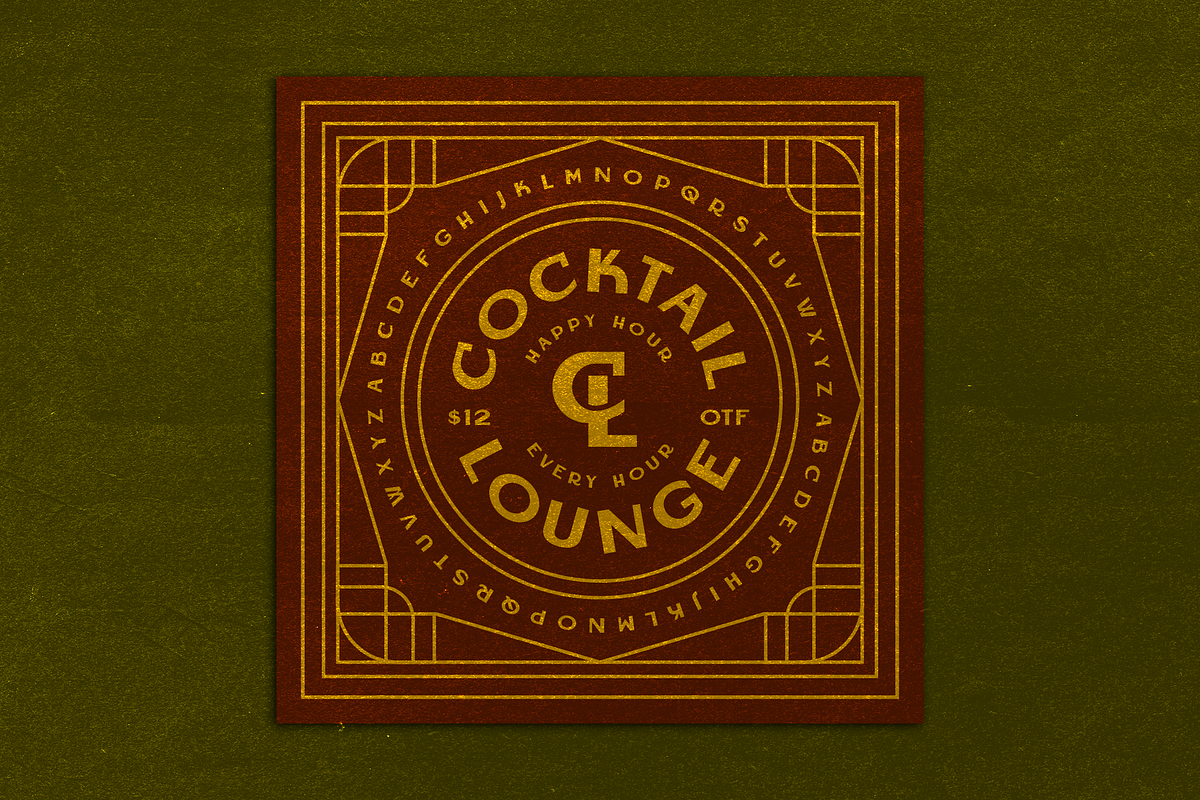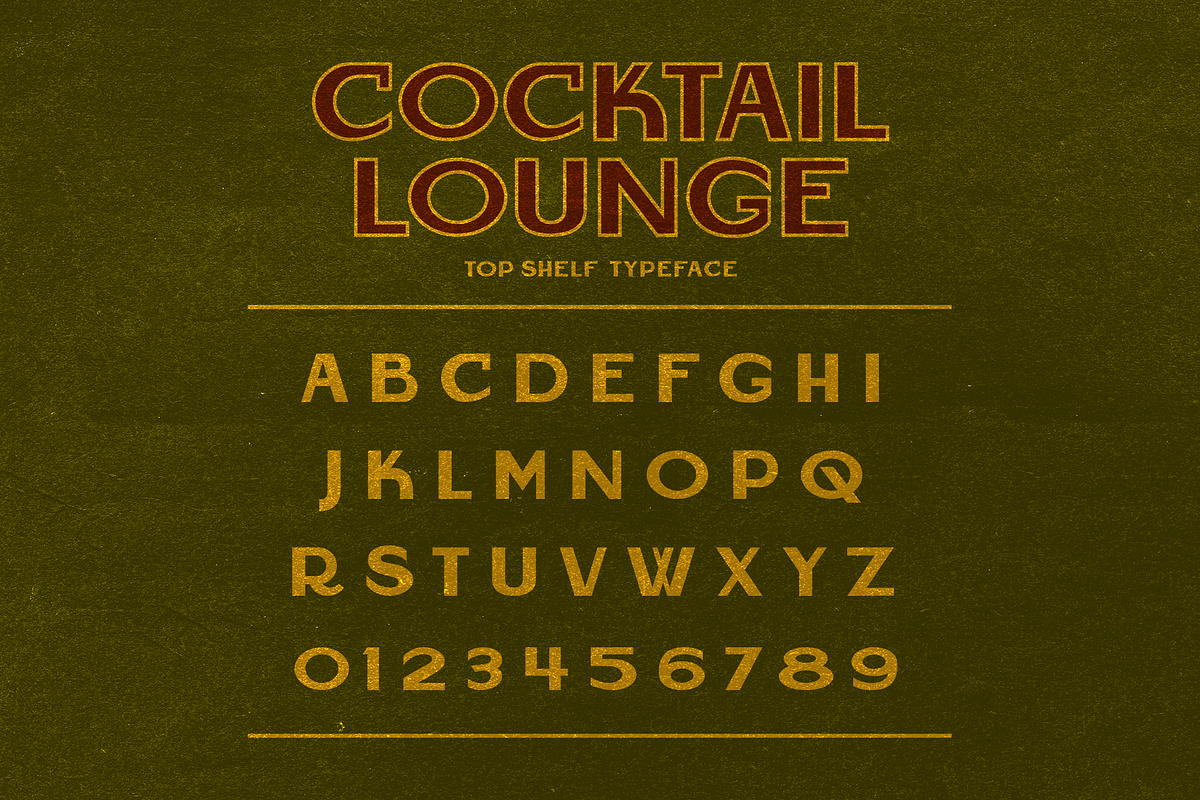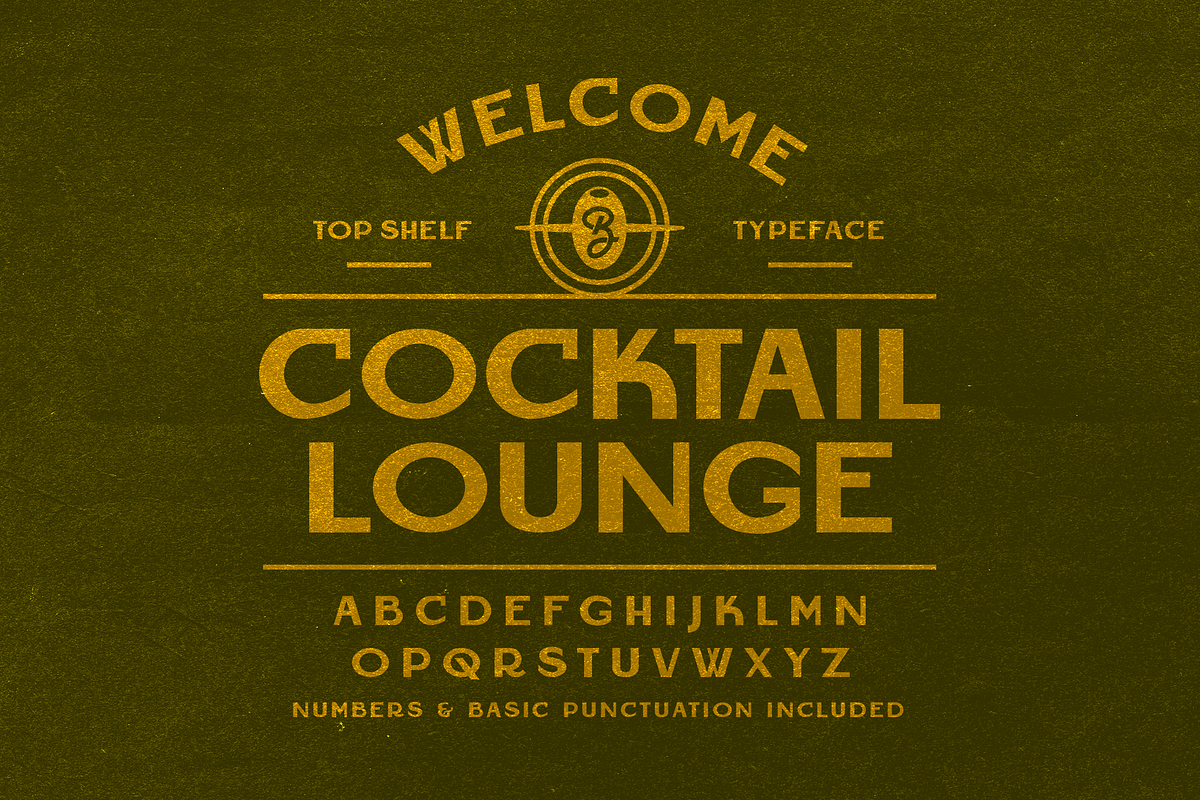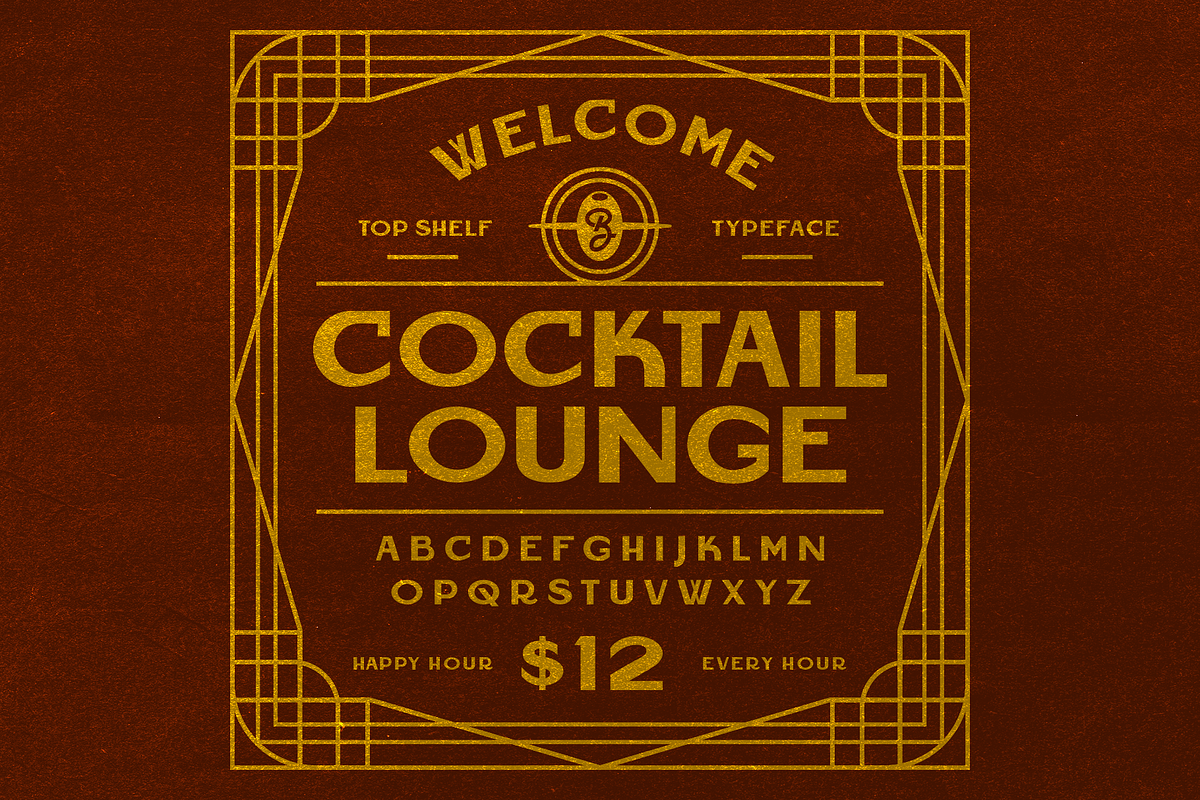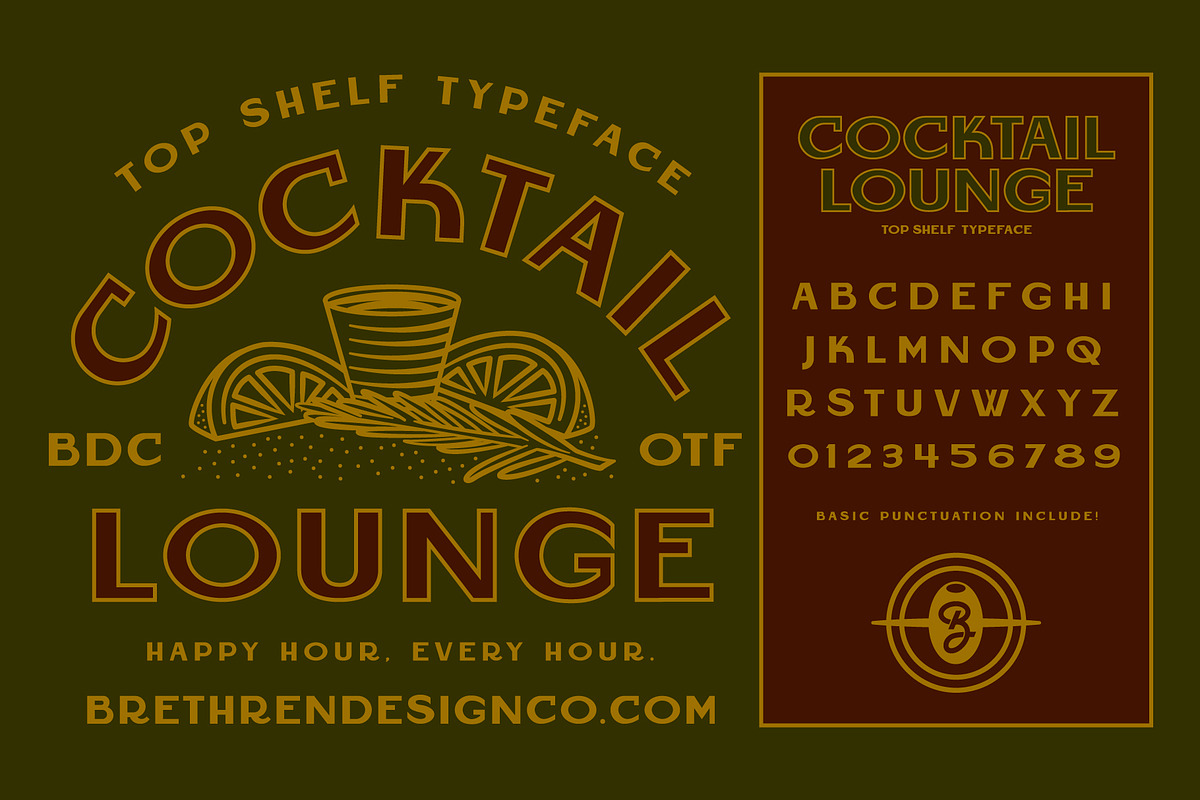
Cocktail Lounge Display Font
Cocktail Lounge is a fancy display face that has an elegant vintage vibes. Perfect for booze or bar branding and packaging. Use it on your next project for a clean art deco aesthetic. Numbers and punctuation included.